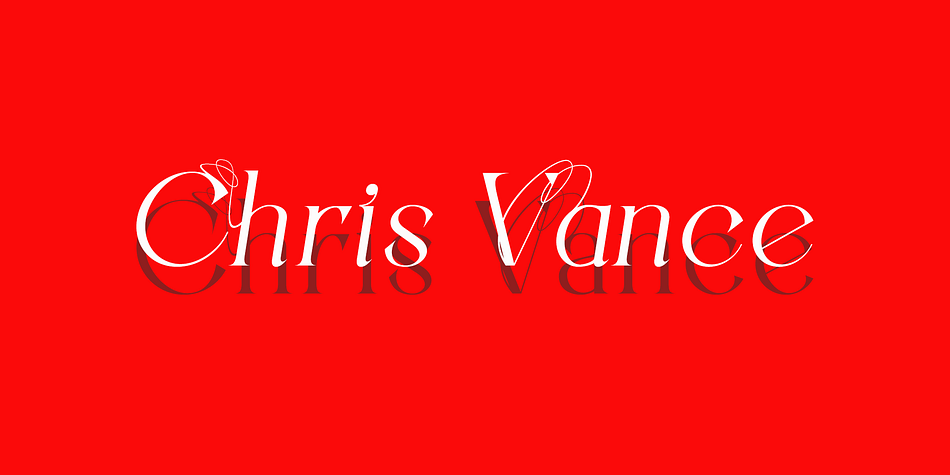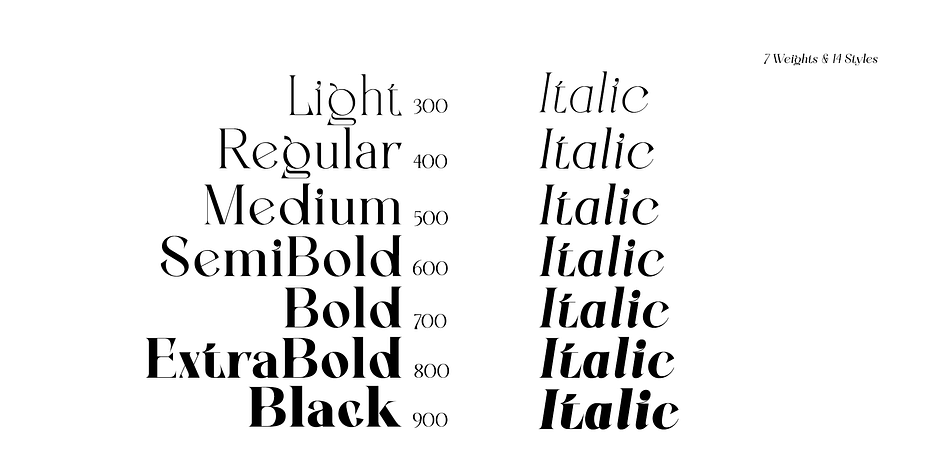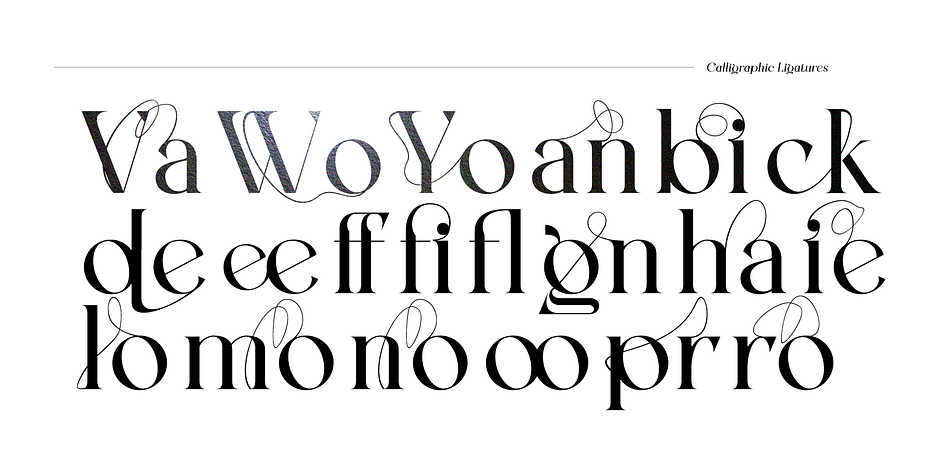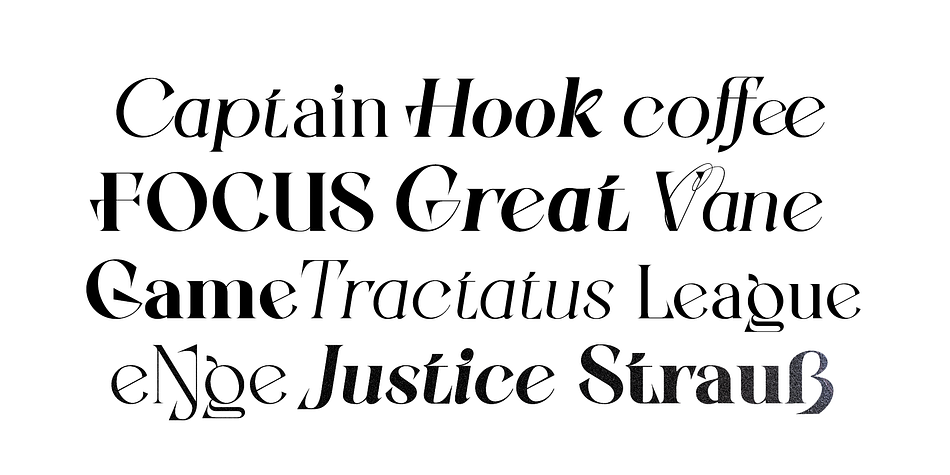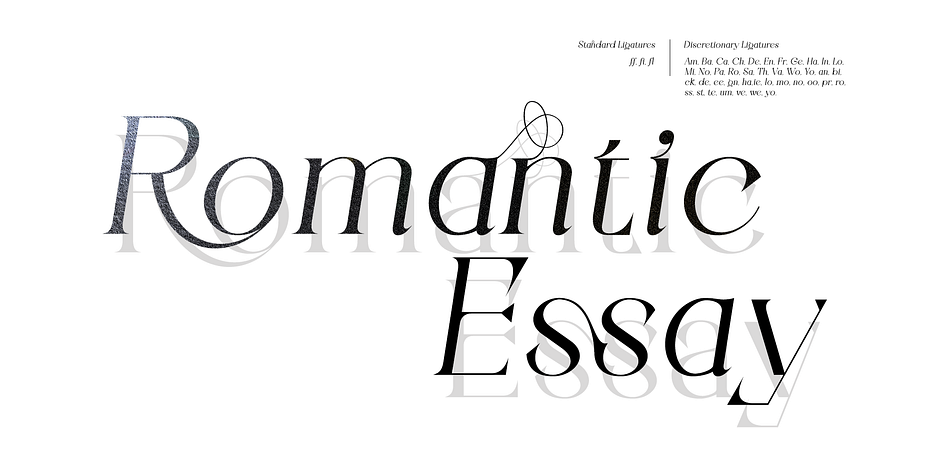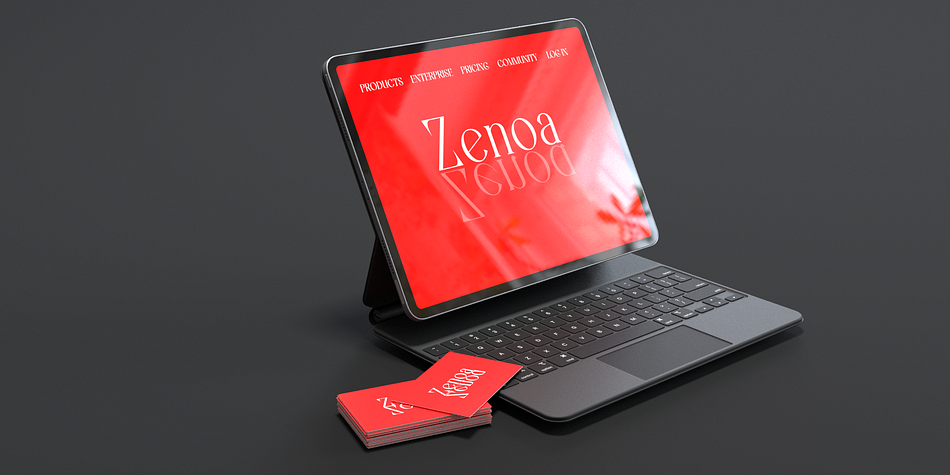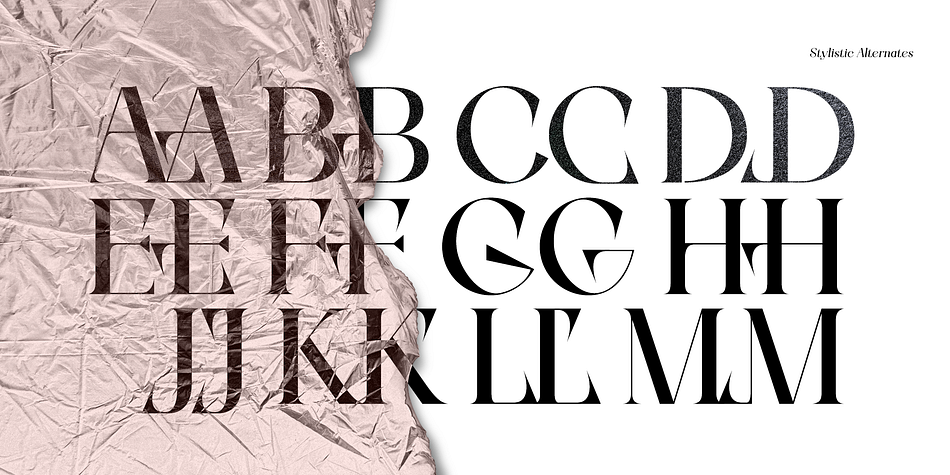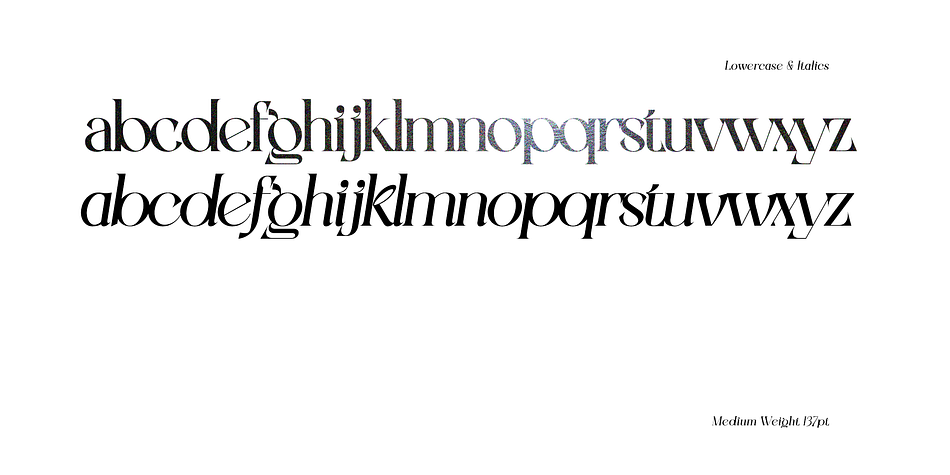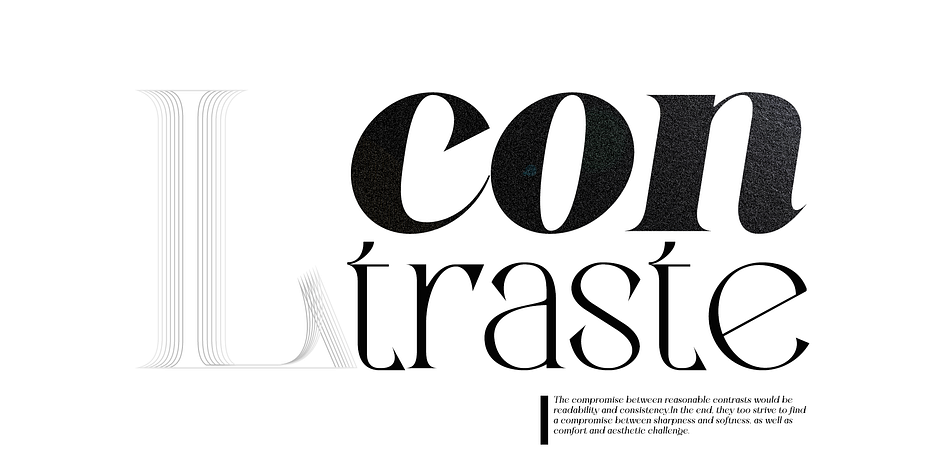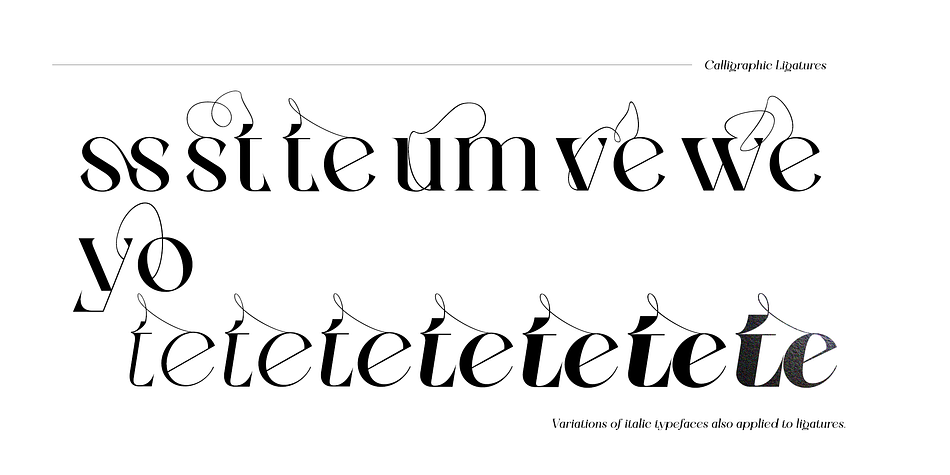
Zenoa is a display serif font family. This typeface has fourteen styles and was published by Brenners Template.
They are sharp and sensitive, but connected-oriented. That’s why they’re designed by incorporating hook glyphs into an elegant serif style.
Somewhat high contrast between vertical and horizontal, they reveal the strong individuality of each glyph, so you can create creative layouts.
The meticulous design stands out so that readability and individuality can be expressed in harmony. And, these are the special excellences of this font family: Stylish Alternates and Ligatures where calligraphic subtlety is artistically connected.
- Alternates : A, B, C, D, E, F, G, H, J, K, L, M, N, P, Q, R, S, T, U, V, W, X, Y.
- Standard Ligatures : ff, fi, fl
- Discretionary ligatures : Am, Ba, Ca, Ch, De, En, Fr, Ge, Ha, In, Lo, Mi, No, Pa, Ro, Sa, Th, Va, Wo, Yo, an, bi, ck, de, ee, gn, ha,ie, lo, mo, no, oo, pr, ro, ss, st, te, um, ve, we, yo.